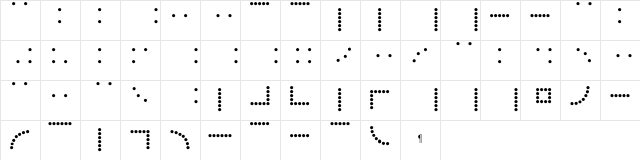
Borders Dot Rule Font Preview
Borders Dot Rule
Borders Dot Rule Font Details
| Style | Dot Rule |
Design Context for Borders Typeface
Borders is rooted in pixel-grid construction, making it a natural fit for game UI, retro computing aesthetics, and digital nostalgia projects.
Well-suited to indie game interfaces, retro computing aesthetics, and pixel art-adjacent design work.